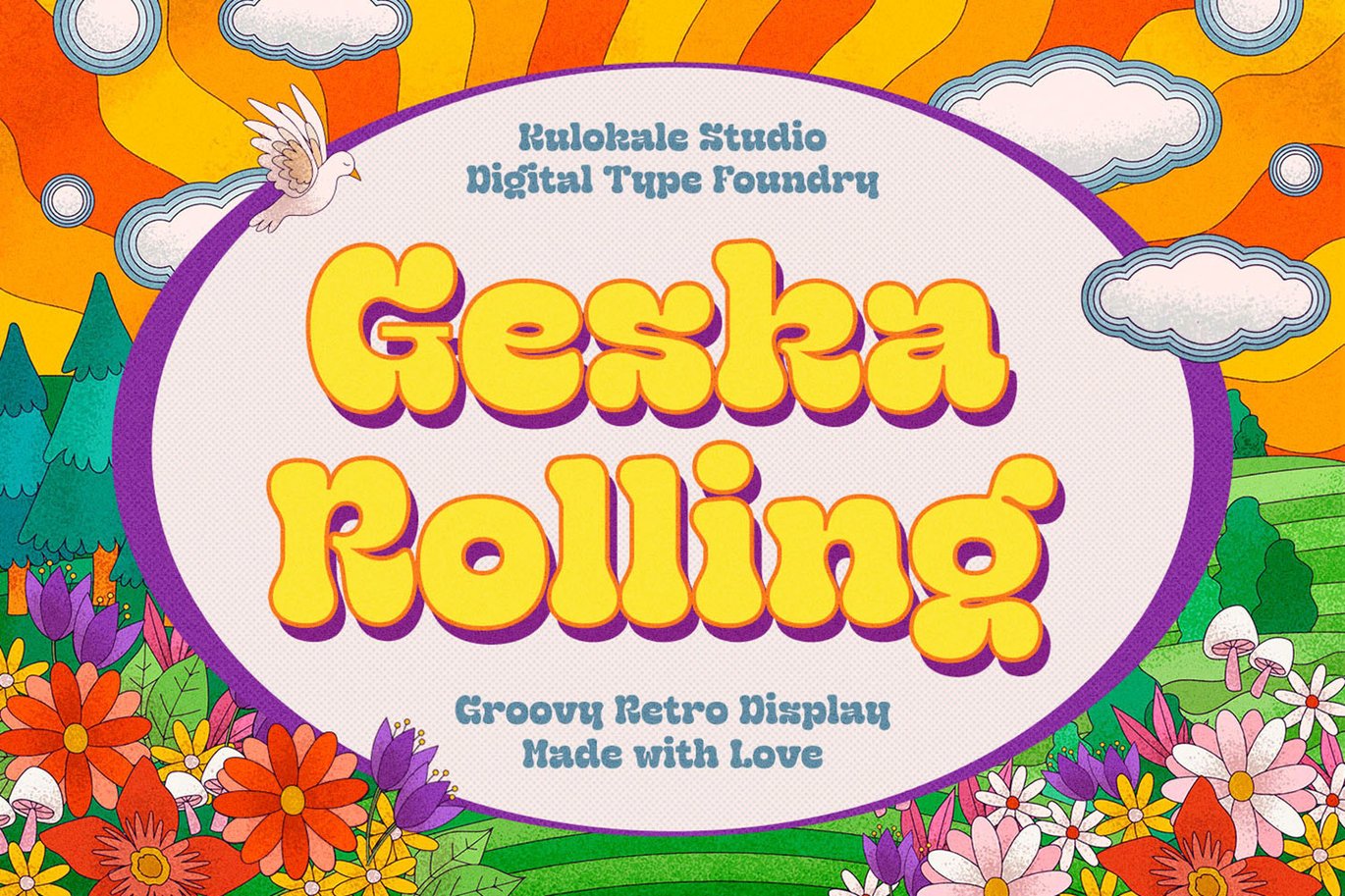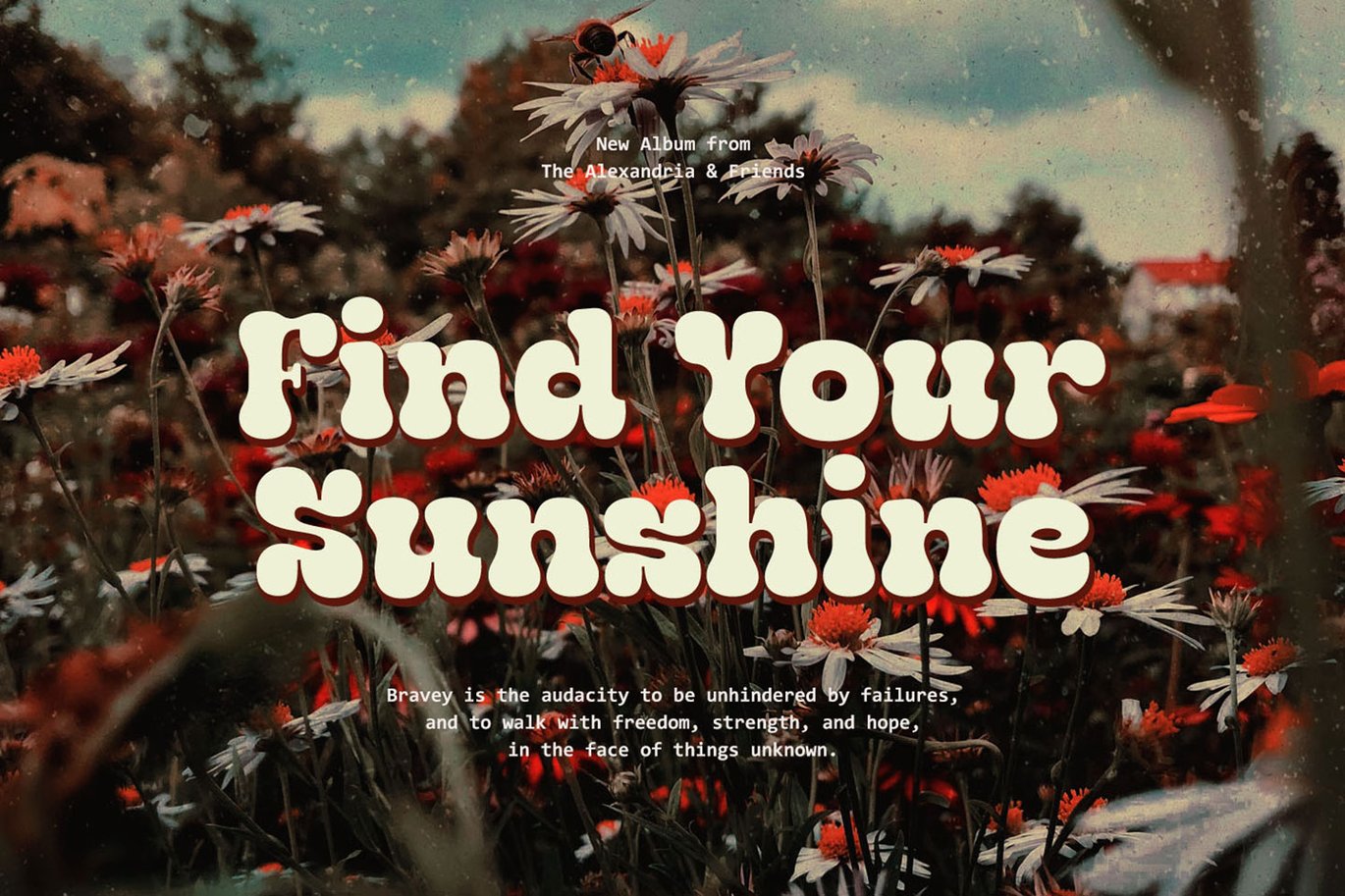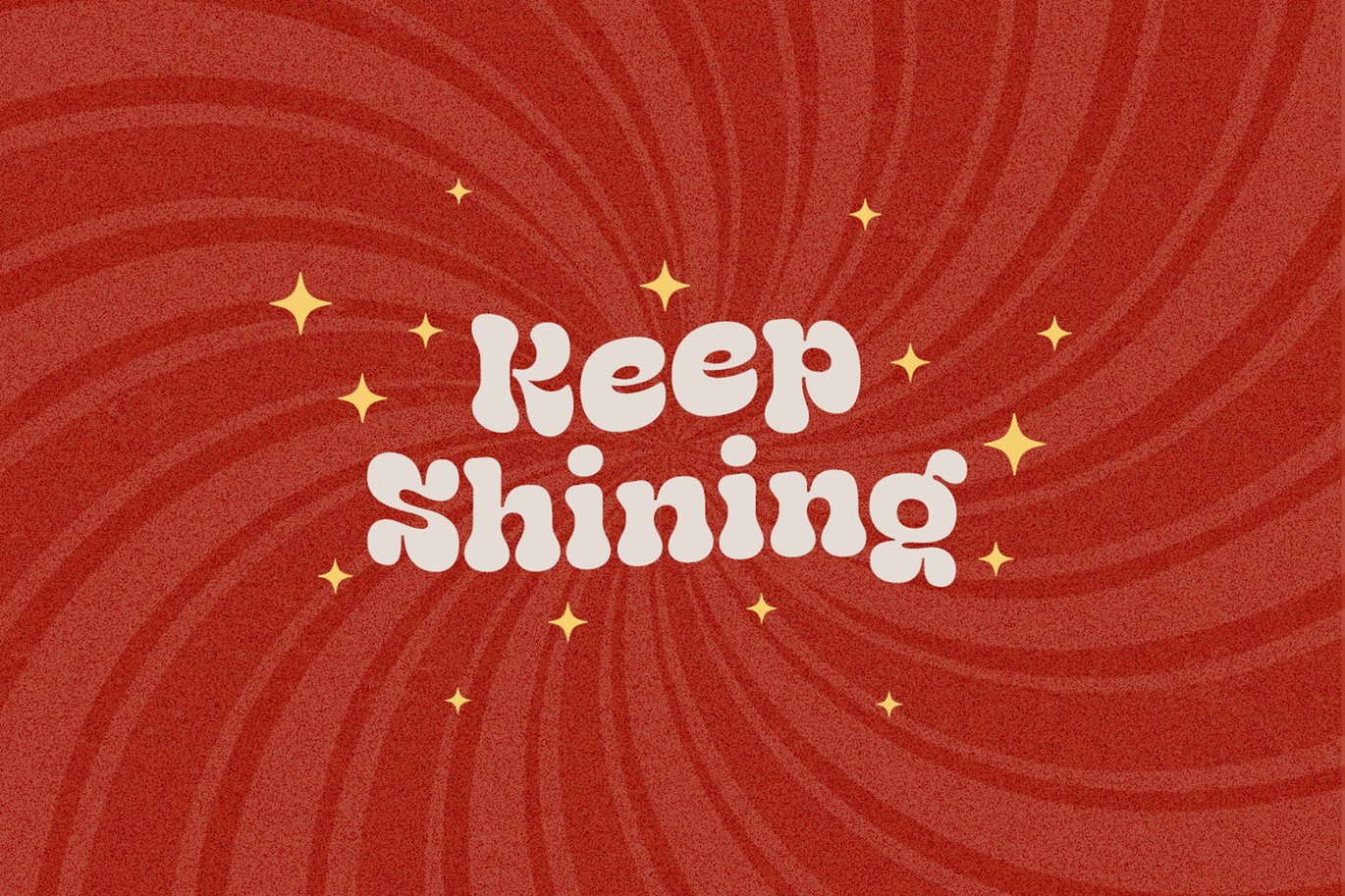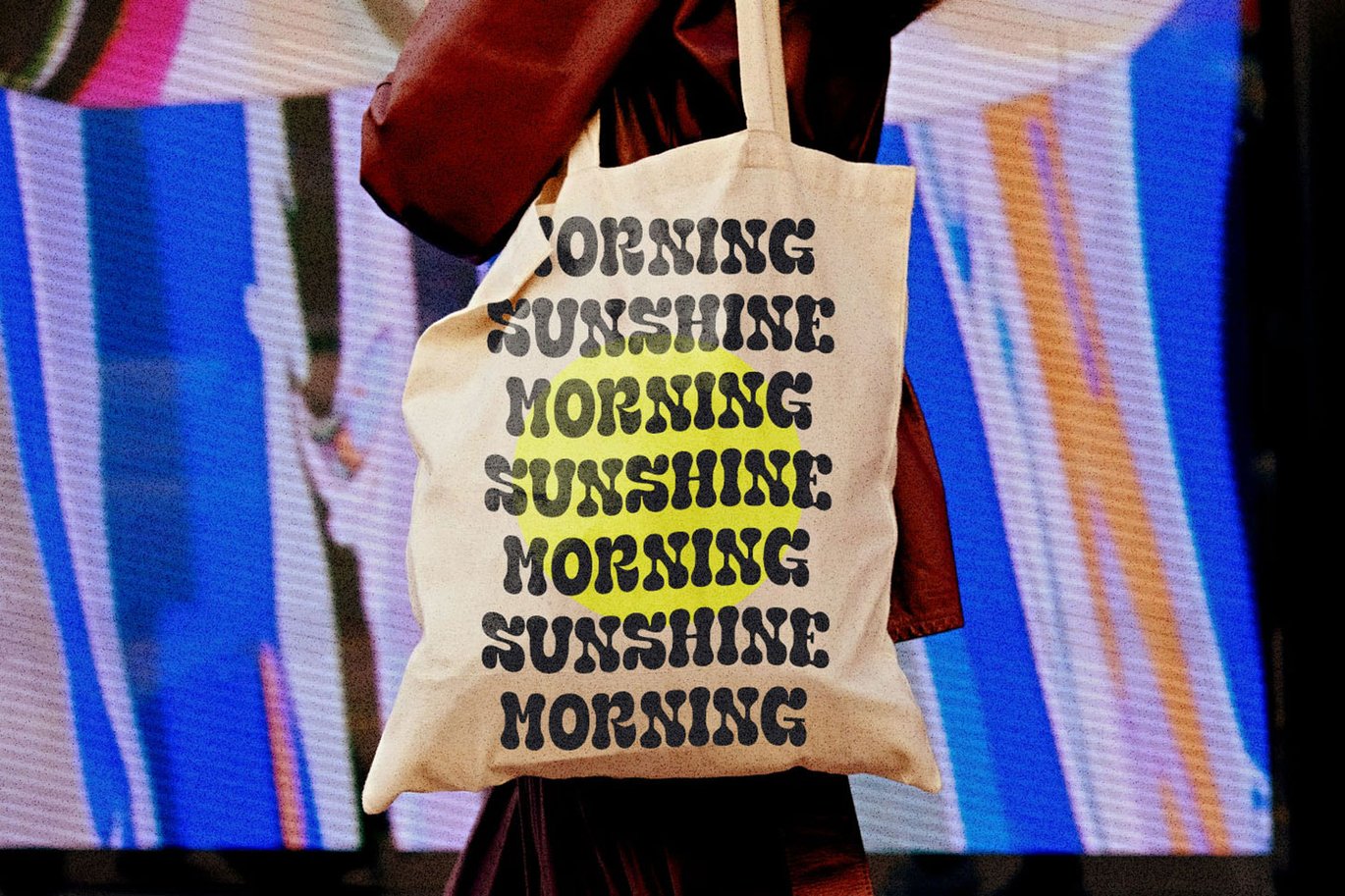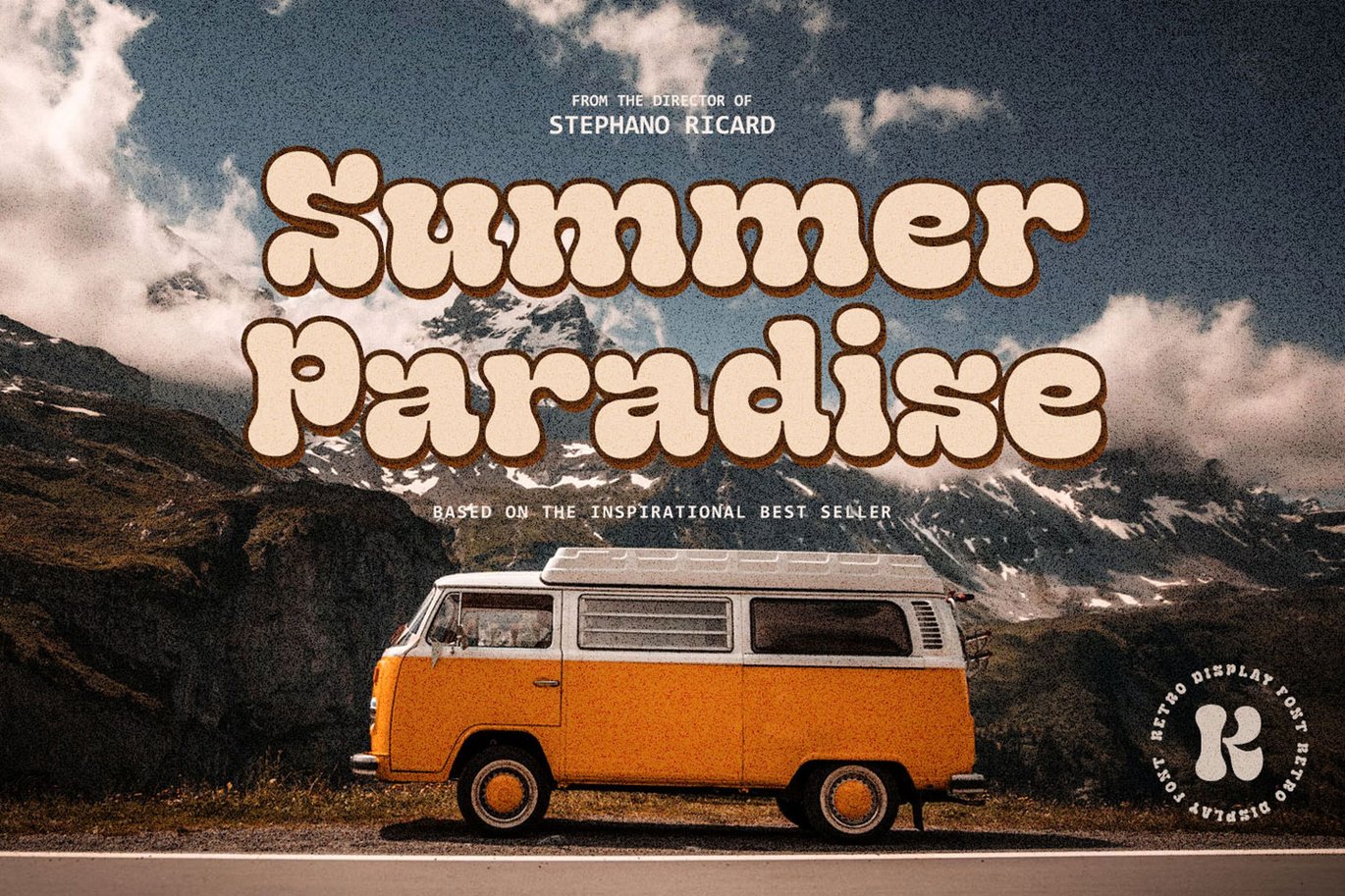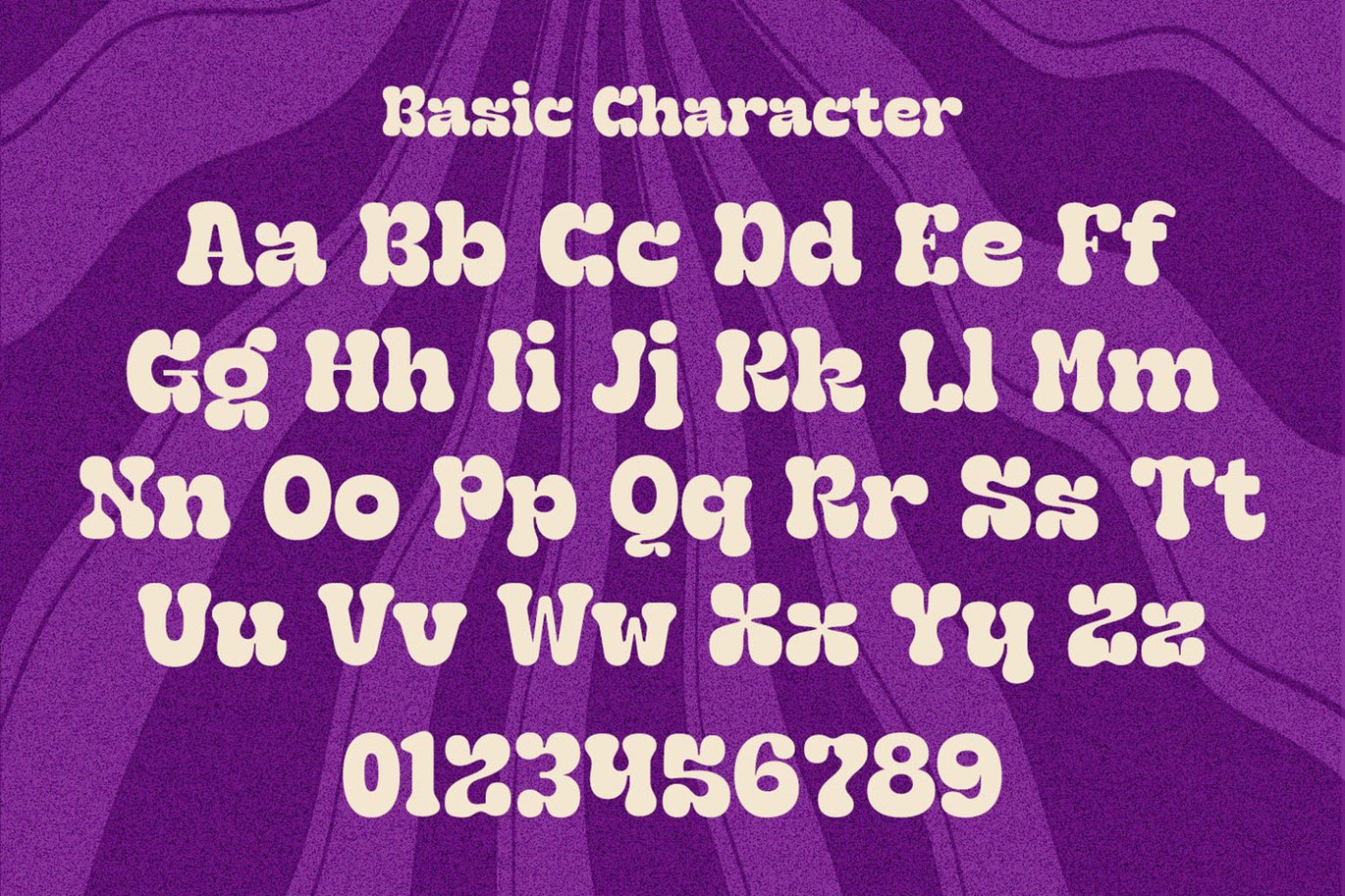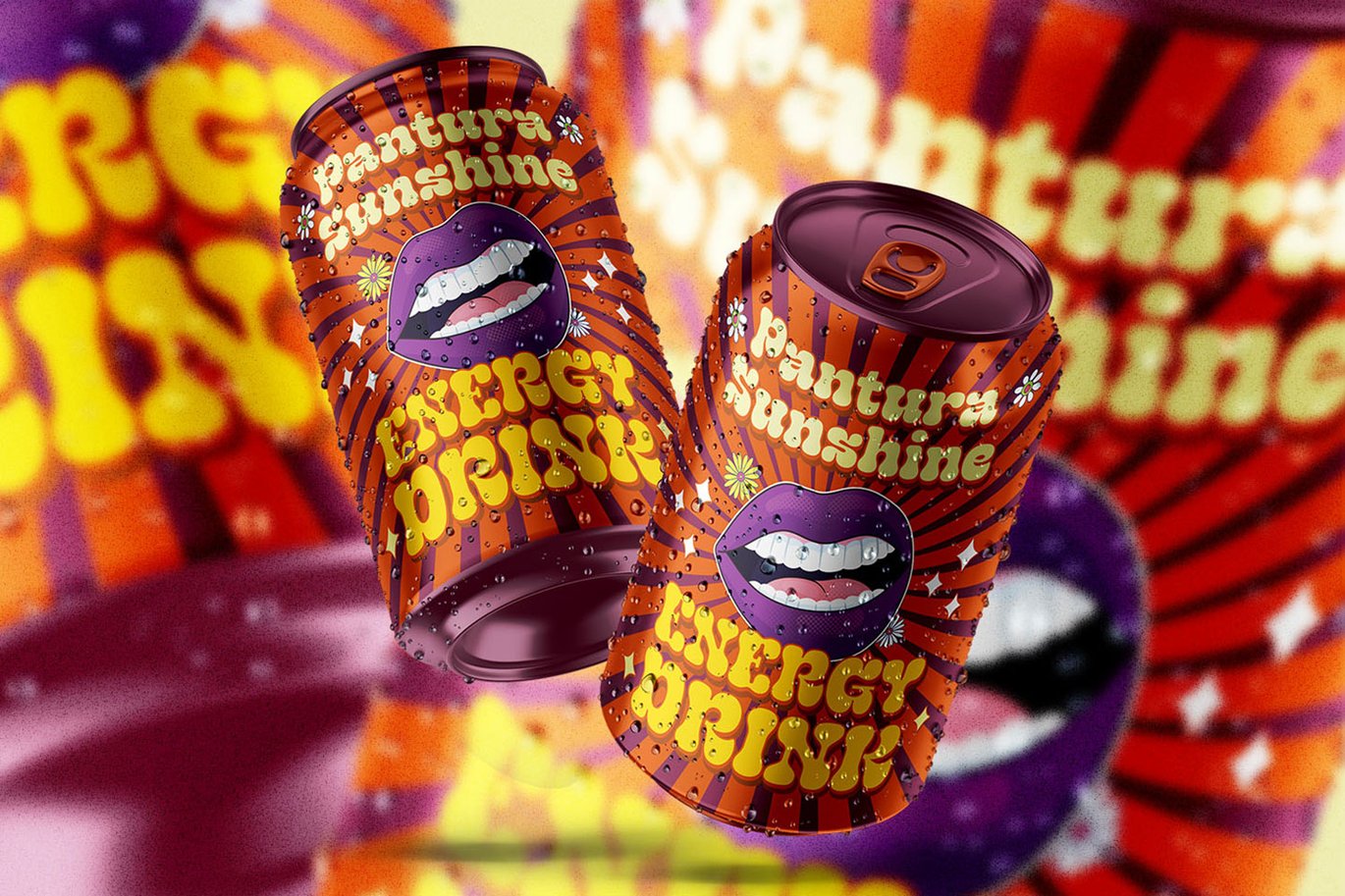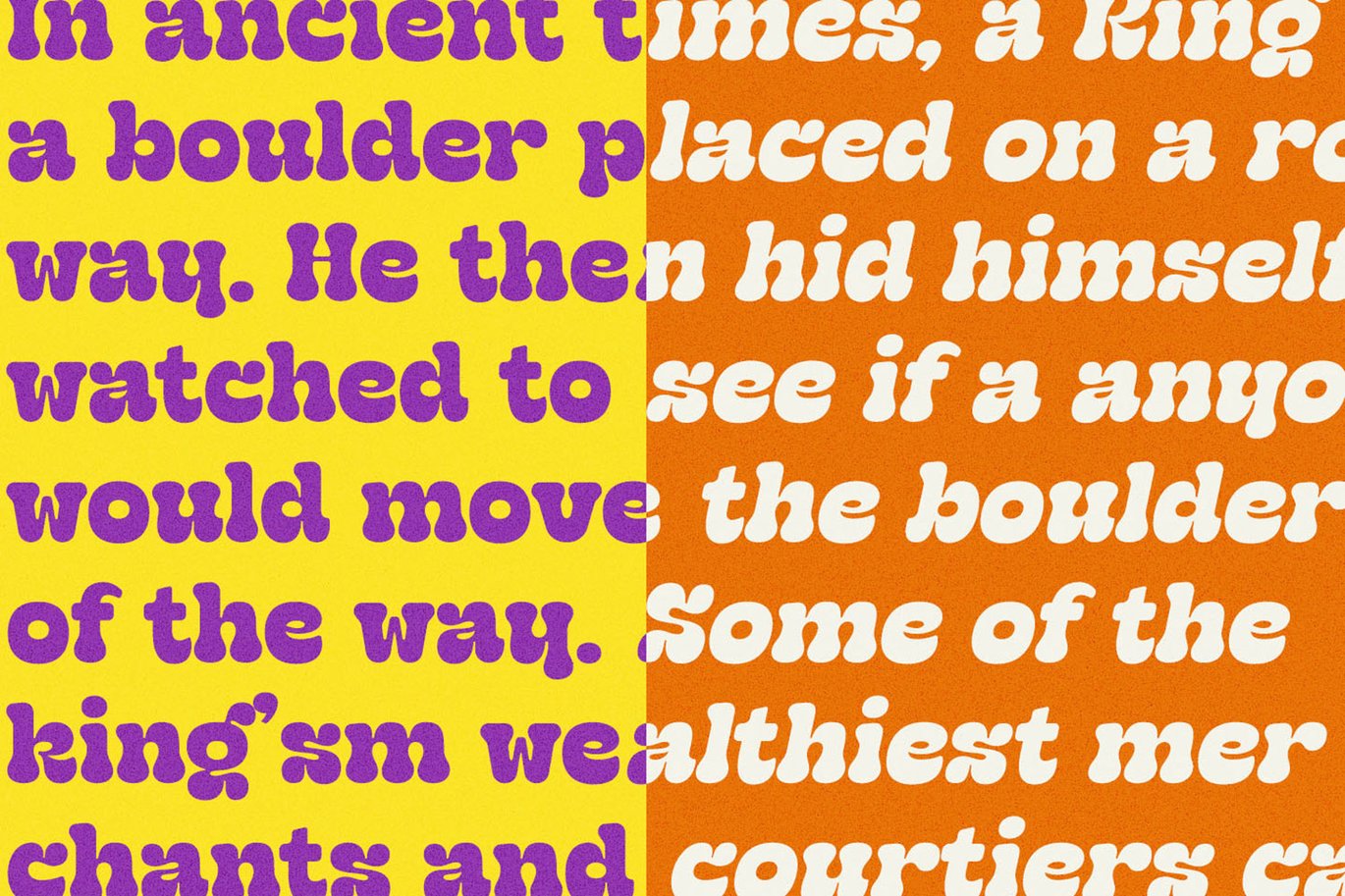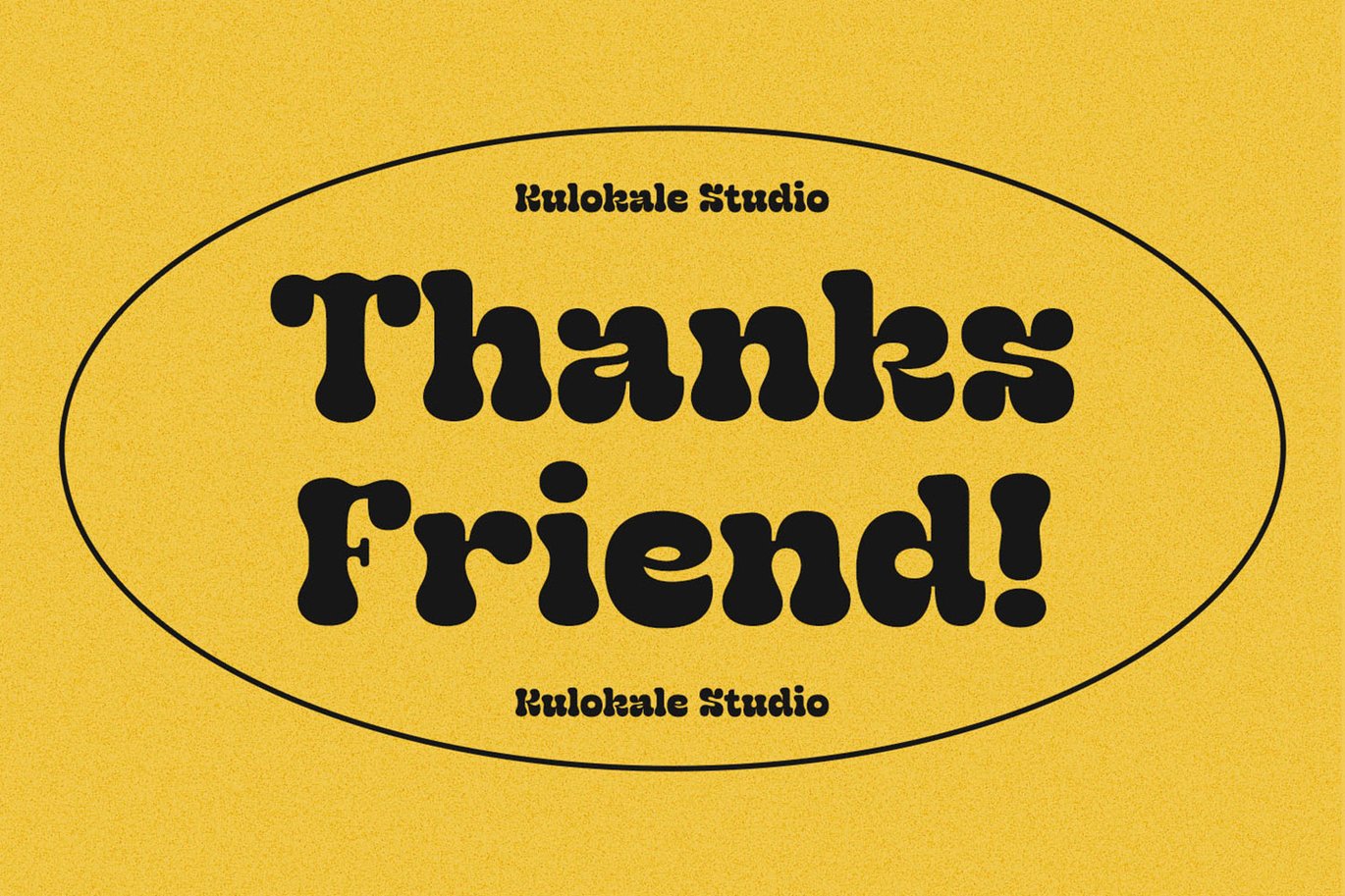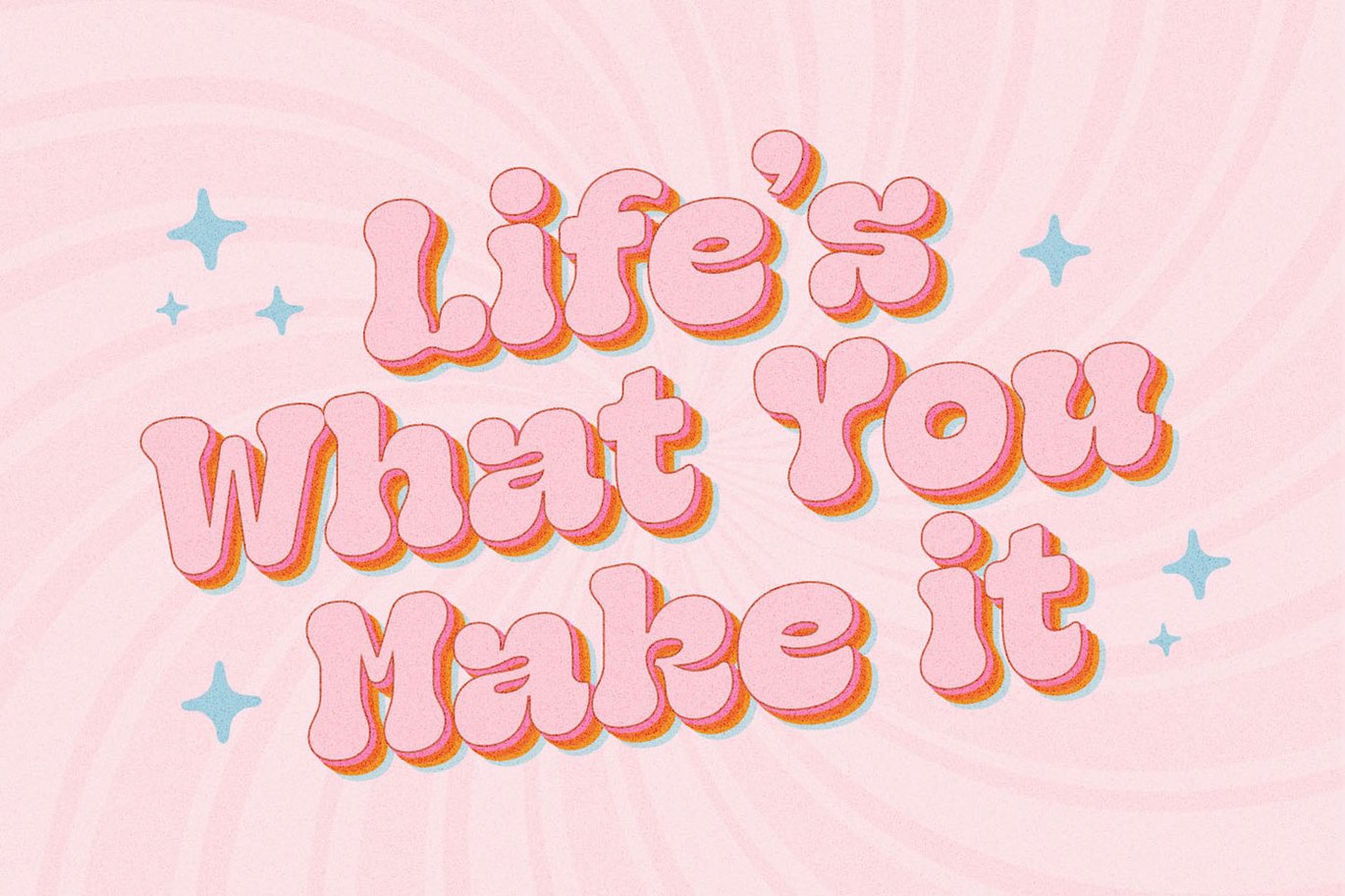
Geska Rolling – Groovy Retro Font
Geska Rolling is a groovy retro display font. Geska Rolling is well-suited for advertising, branding, logotypes, packaging, titles, headlines and editorial design. This font comes in 2 styles, Regular and Oblique version.